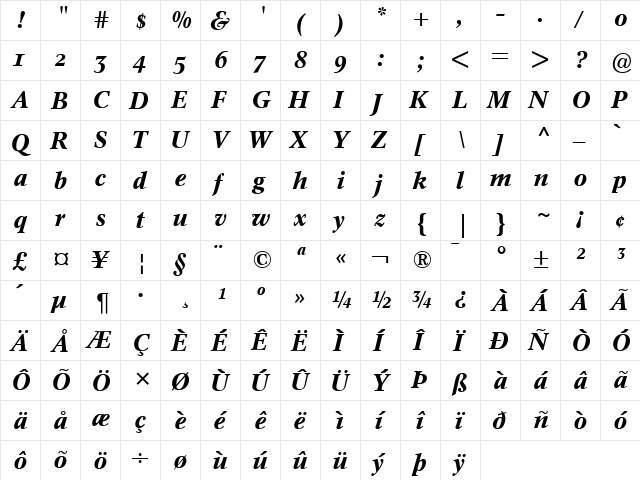
Concorde BE ItalicBold
Design Context for Concorde BE Typeface
Concorde BE takes a measured approach to typography — its balanced proportions and neutral character make it a reliable workhorse for both digital and print work. The slanted form adds forward momentum and visual energy. The heavy weight commands attention and anchors typographic hierarchies.
Pro Tip: Use Concorde BE for emphasis, pull quotes, and subheadings where its slanted energy can add rhythm to the layout.